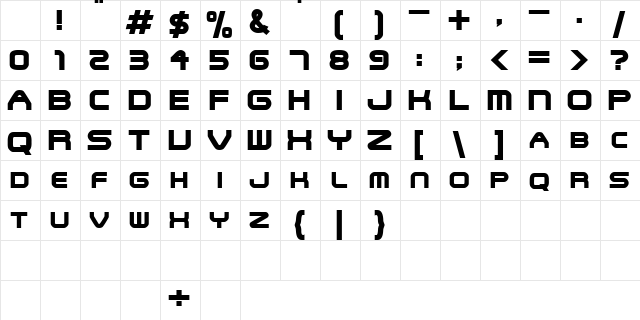
Complete SNFU Heavy glyph index. Displaying only characters natively supported by SNFU Heavy font.
SNFU is a composed and adaptable typeface that performs quietly and consistently across a wide range of design contexts.